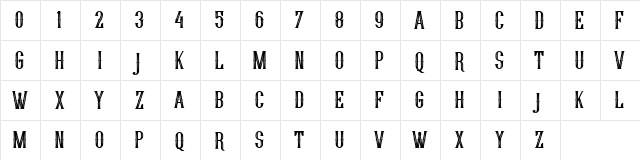
Young Heart Regular
| Foundry | Alit Design |
| Designer | Alit Suarnegara |
Design Context for Young Heart Typeface
Young Heart offers clean, dependable letterforms without strong stylistic allegiance, making it a practical choice for designers who need flexibility.